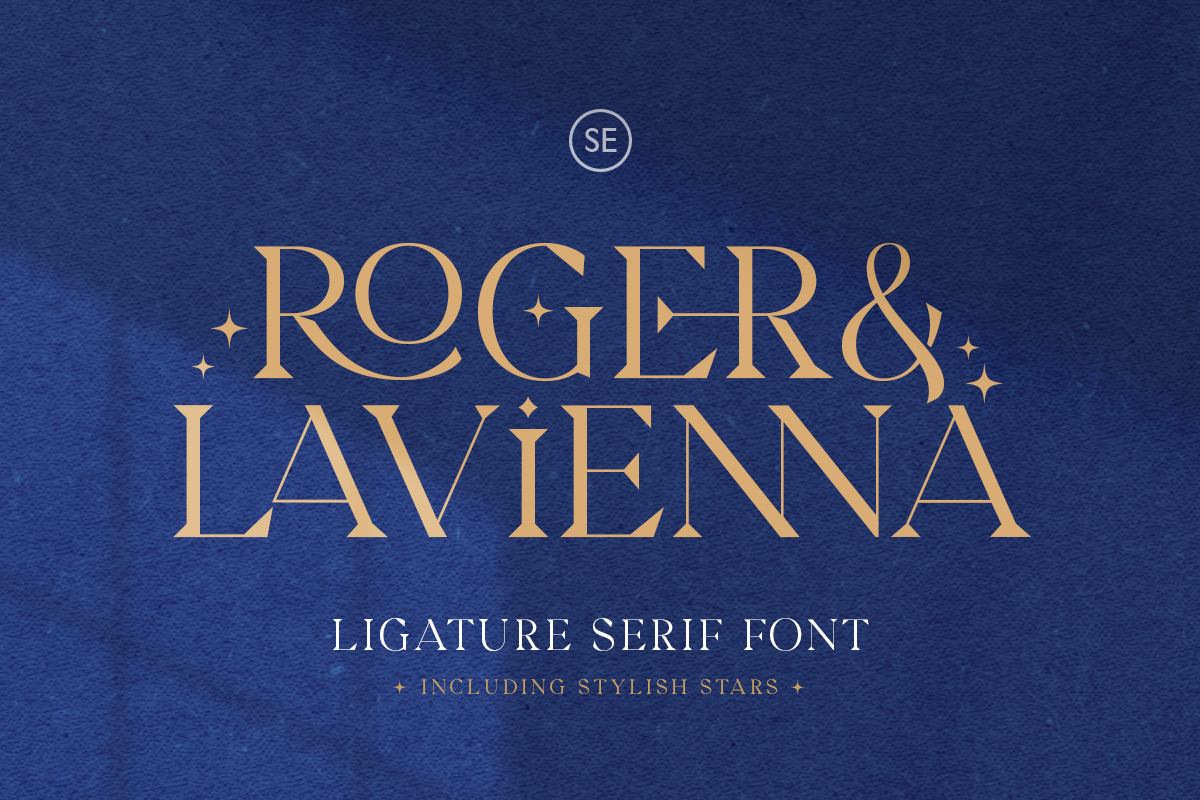
Roger & Lavienna - Ligature Serif Free Download
Roger & Lavienna - Ligature Serif Font Free Download
The Roger & Lavienna - Ligature Serif Font Free Download is a beautifully crafted serif font that combines elegance with modern design. Featuring unique ligatures, this font adds a sophisticated touch to your designs, making it perfect for logos, branding materials, invitations, and more. Its refined letterforms and classic serif style exude professionalism, while the ligatures bring a distinctive flair to your typography. Whether you're designing for luxury brands, editorial layouts, or creative projects, Roger & Lavienna offers versatility and elegance. Please note, for commercial use, a license purchase is required. However, you can easily download the Roger & Lavienna - Ligature Serif Font Free Download for free for personal use and explore its beauty. Download the Roger & Lavienna - Ligature Serif Font Free Download today and elevate your designs with a touch of elegance and style.